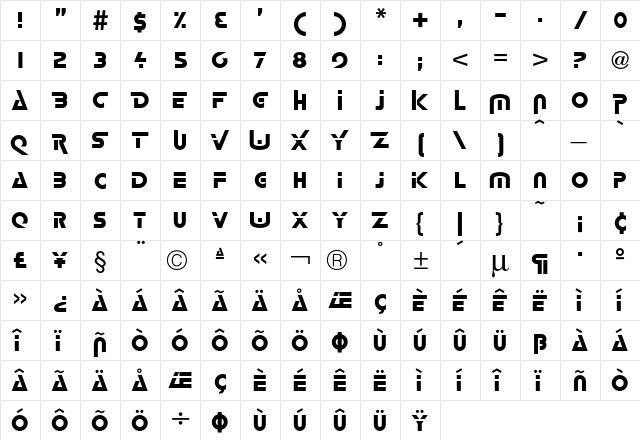
Lynz Font
Design Context for Lynz Typeface
Lynz takes a measured approach to typography — its balanced proportions and neutral character make it a reliable workhorse for both digital and print work.